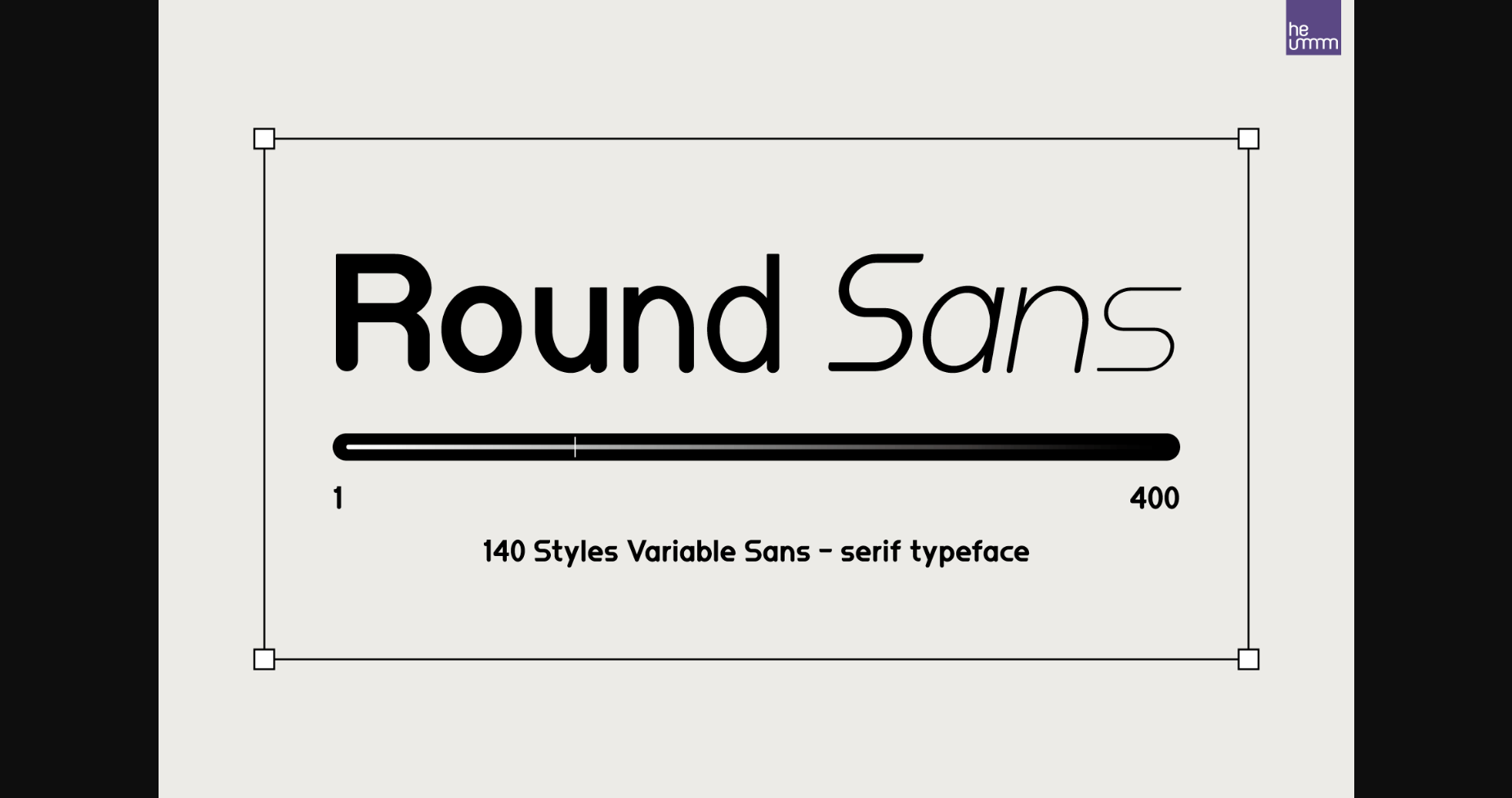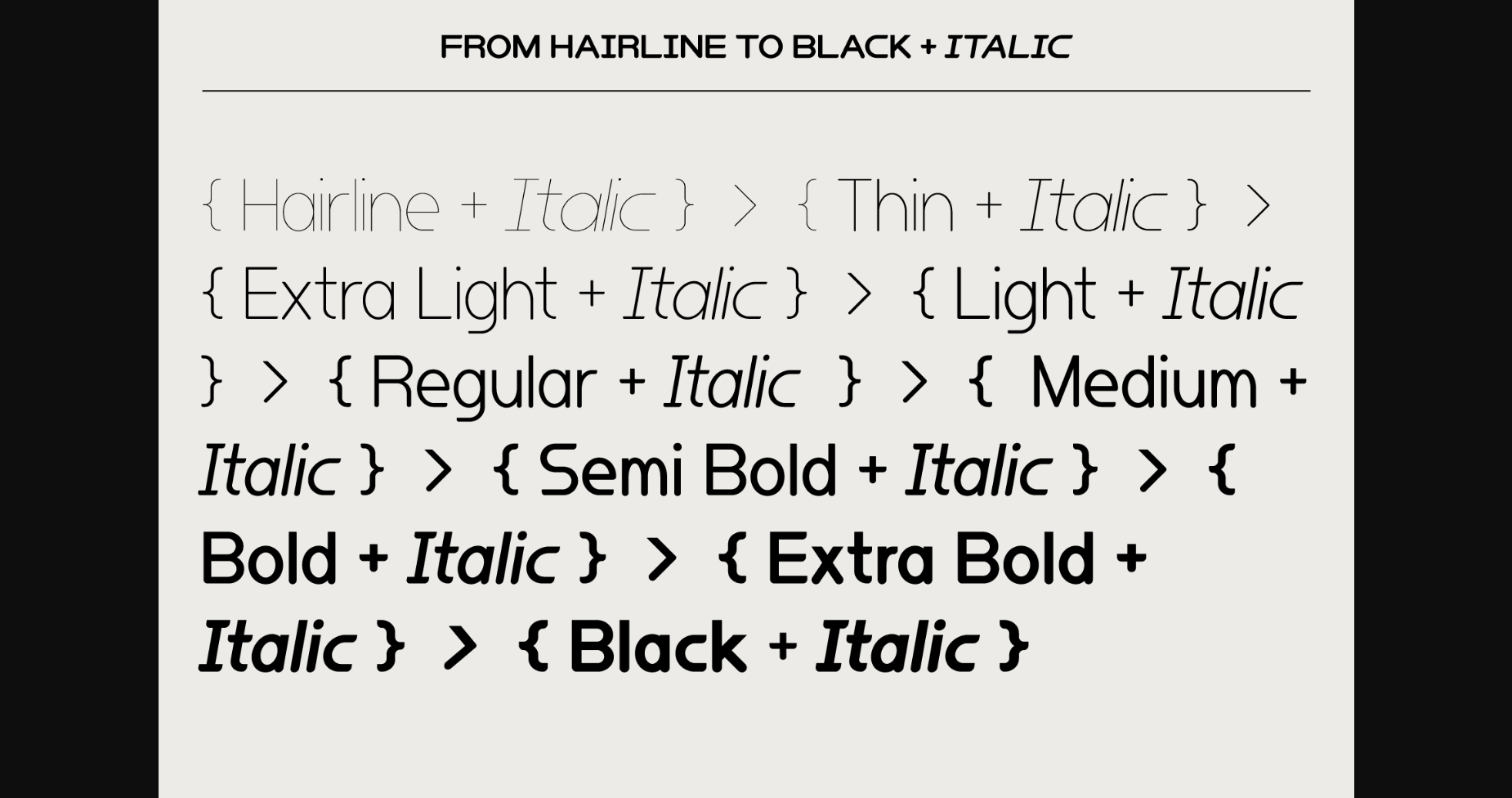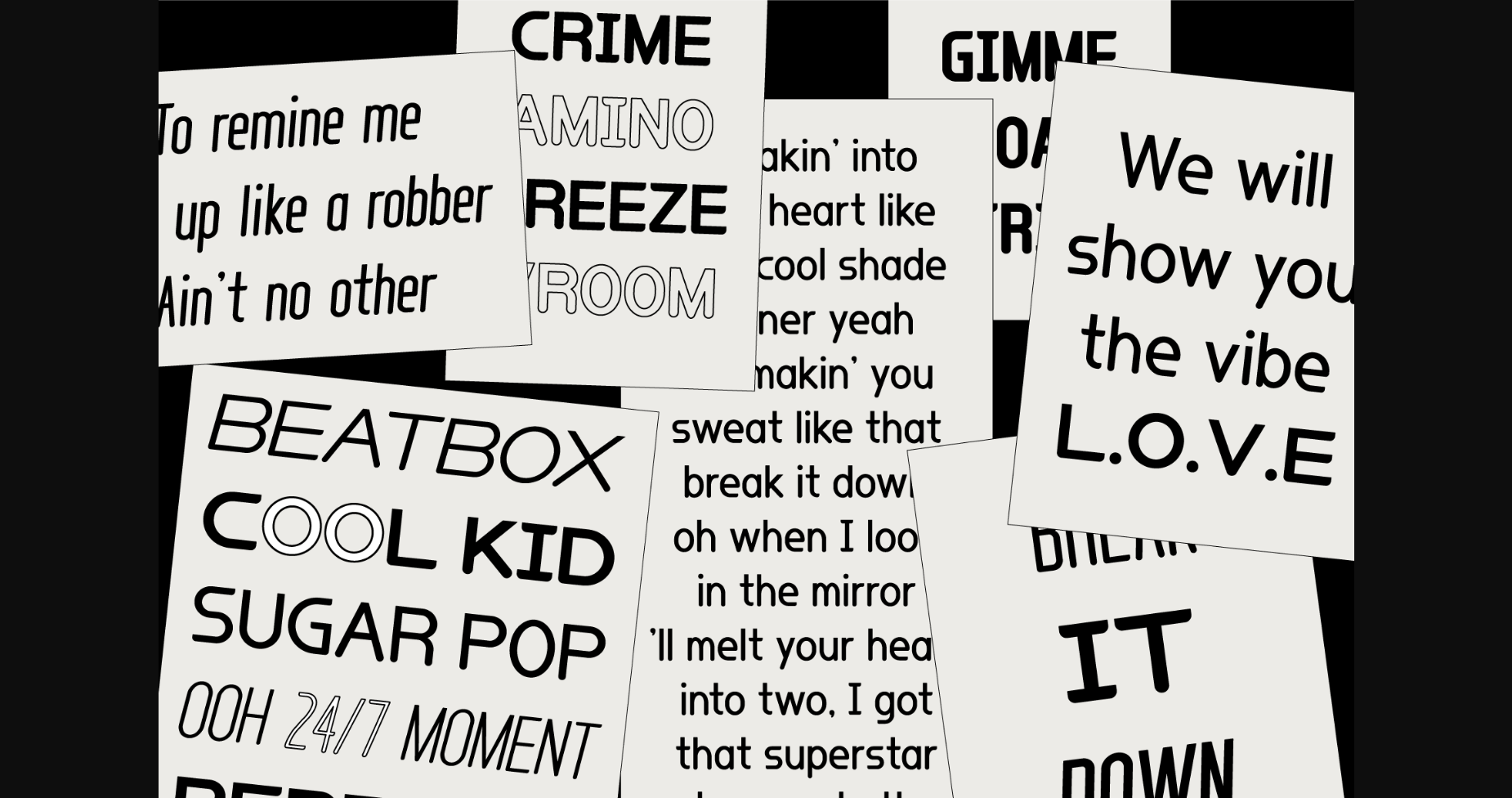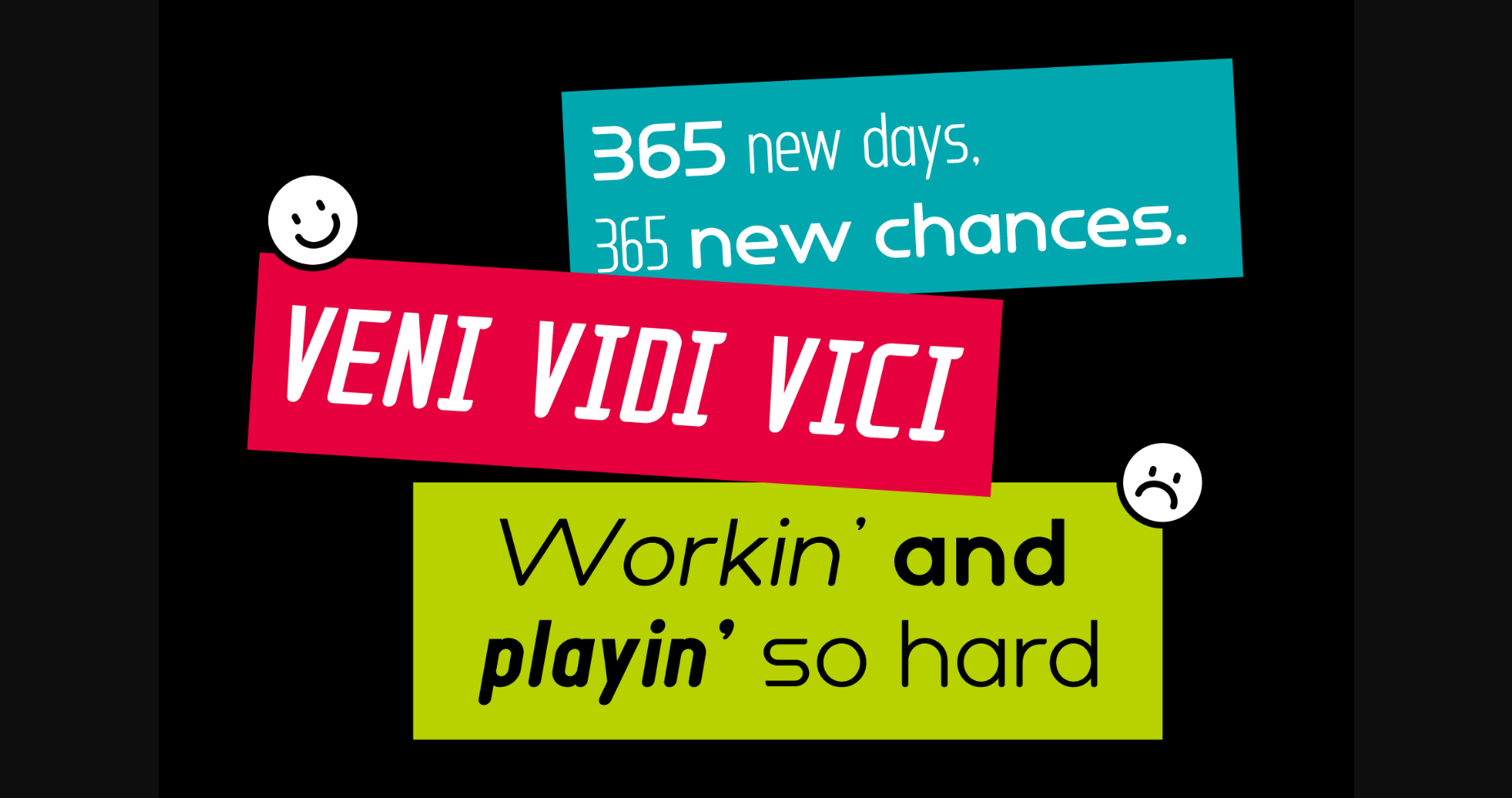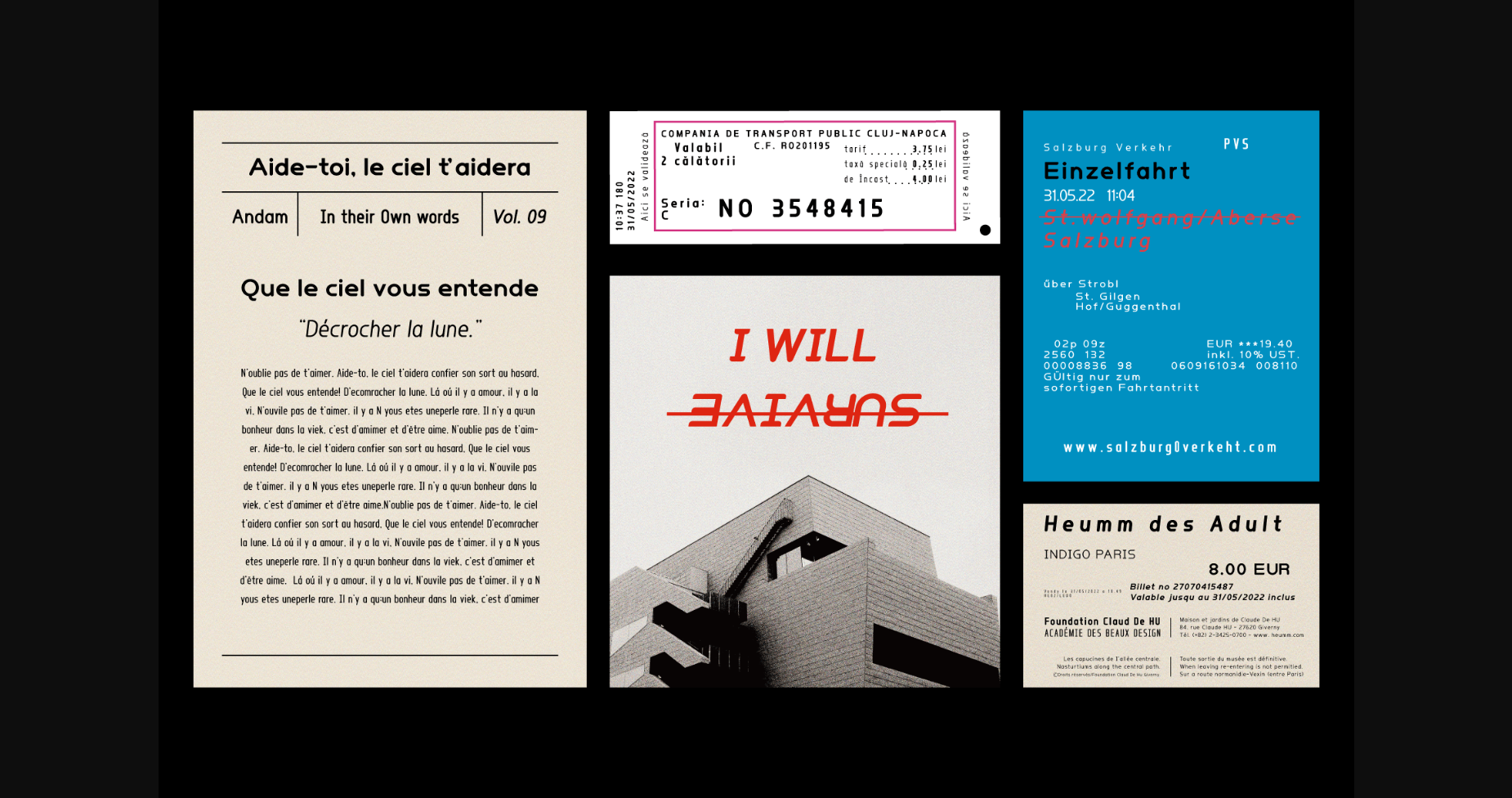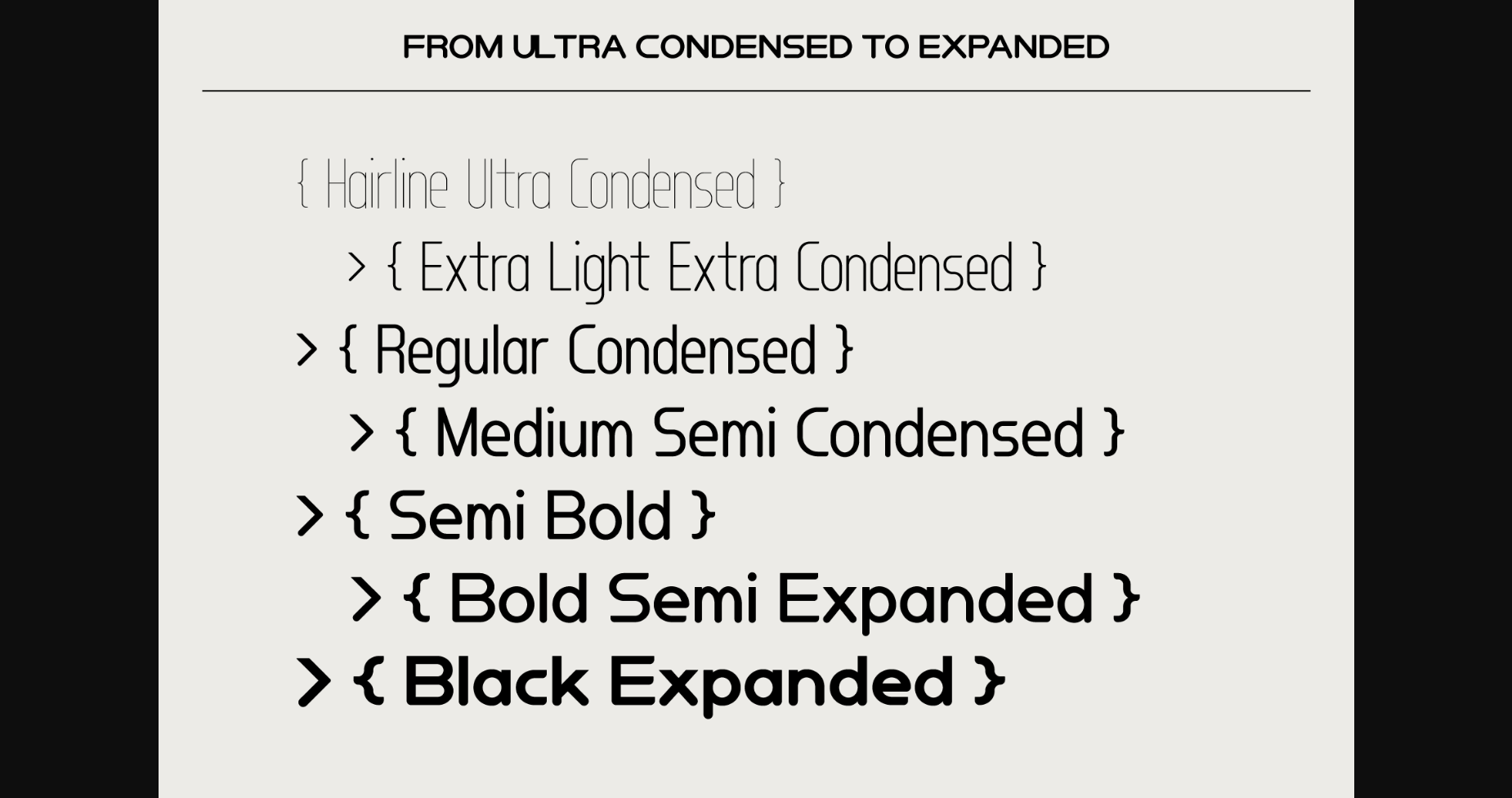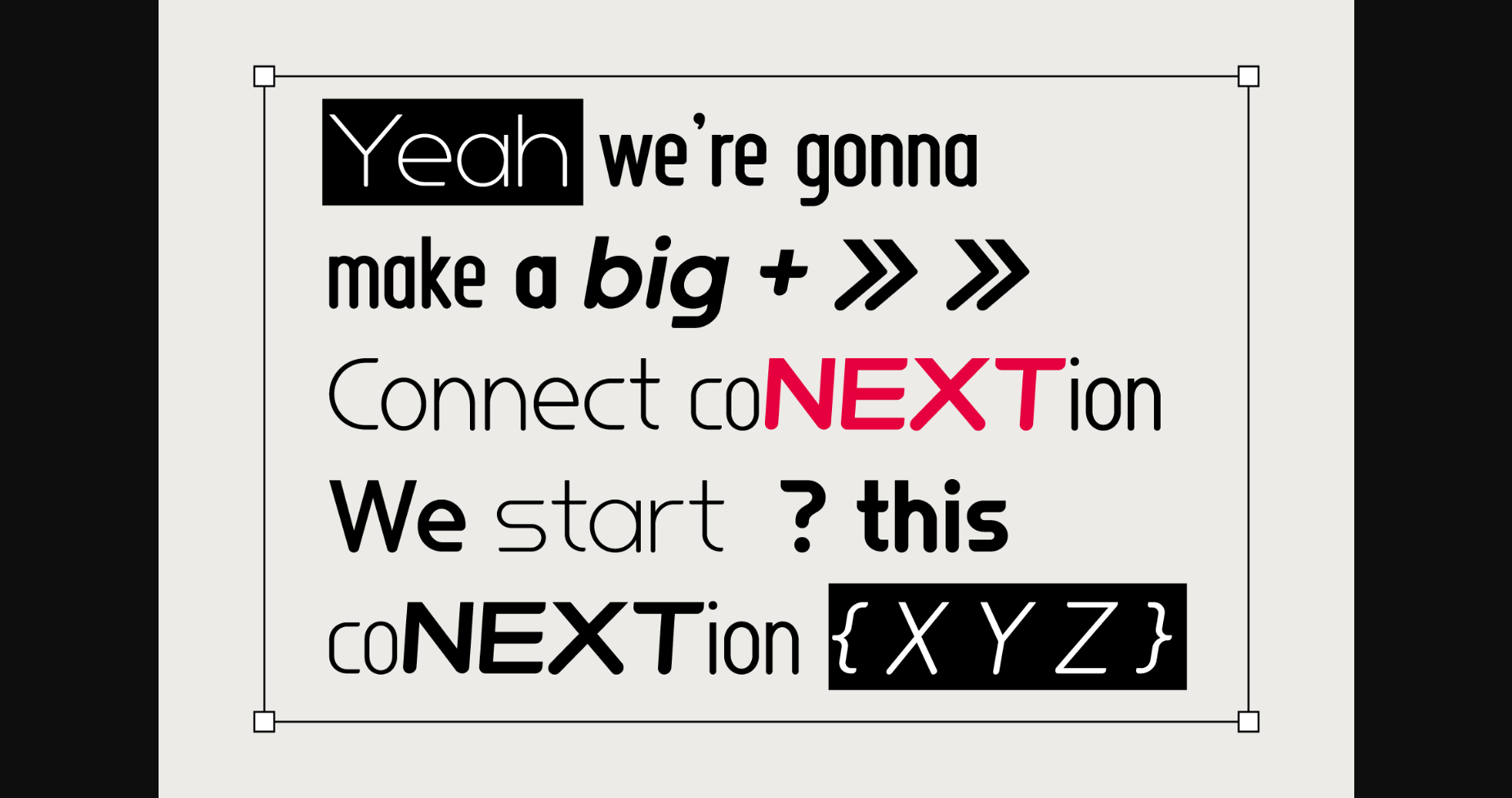
Roundsans Font
About Roundsans Font
Roundsans is a sans serif variable typeface with matching italics. It has a variable width that adapts to your needs, pushing for maximum readability. Useful for any quirky display uses.
It’s perfect for logos, posters, titling, UI/UX design, visual identity, social media, music cover art, etc.